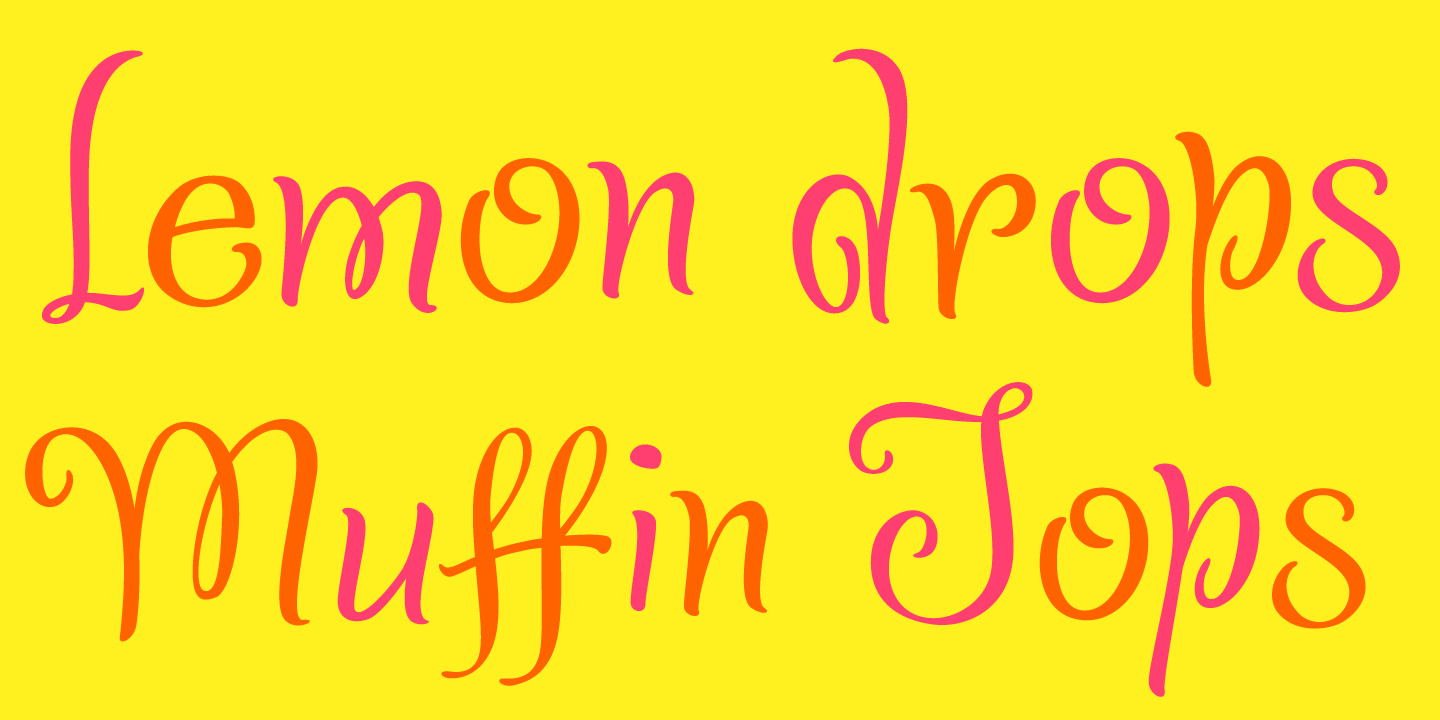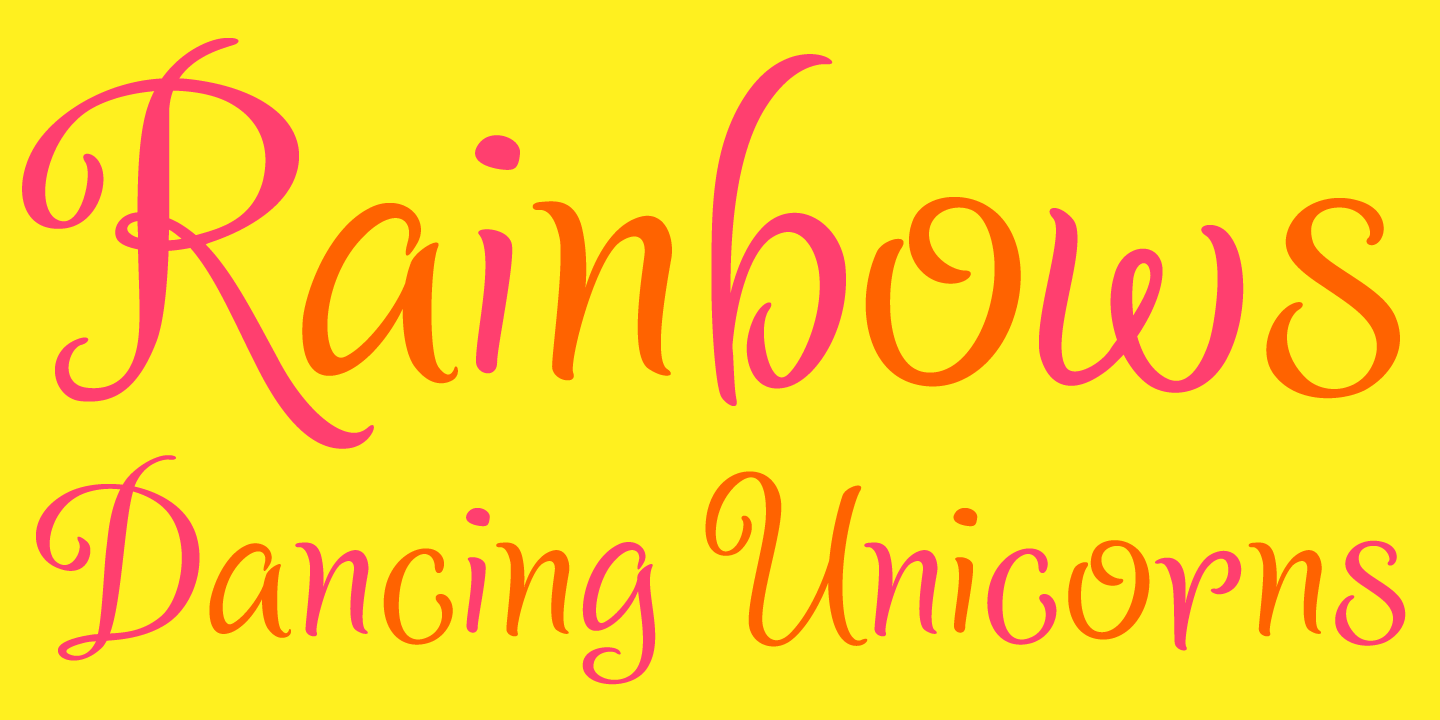
Confection
Confection is an adorable typeface inspired by copperplate scripts but is non-connecting.
It’s frosted with swirling peaks of whipped cream and whimsical stems of pulled taffy. The opentype version is caramel filled with delicious ligatures and alternates.